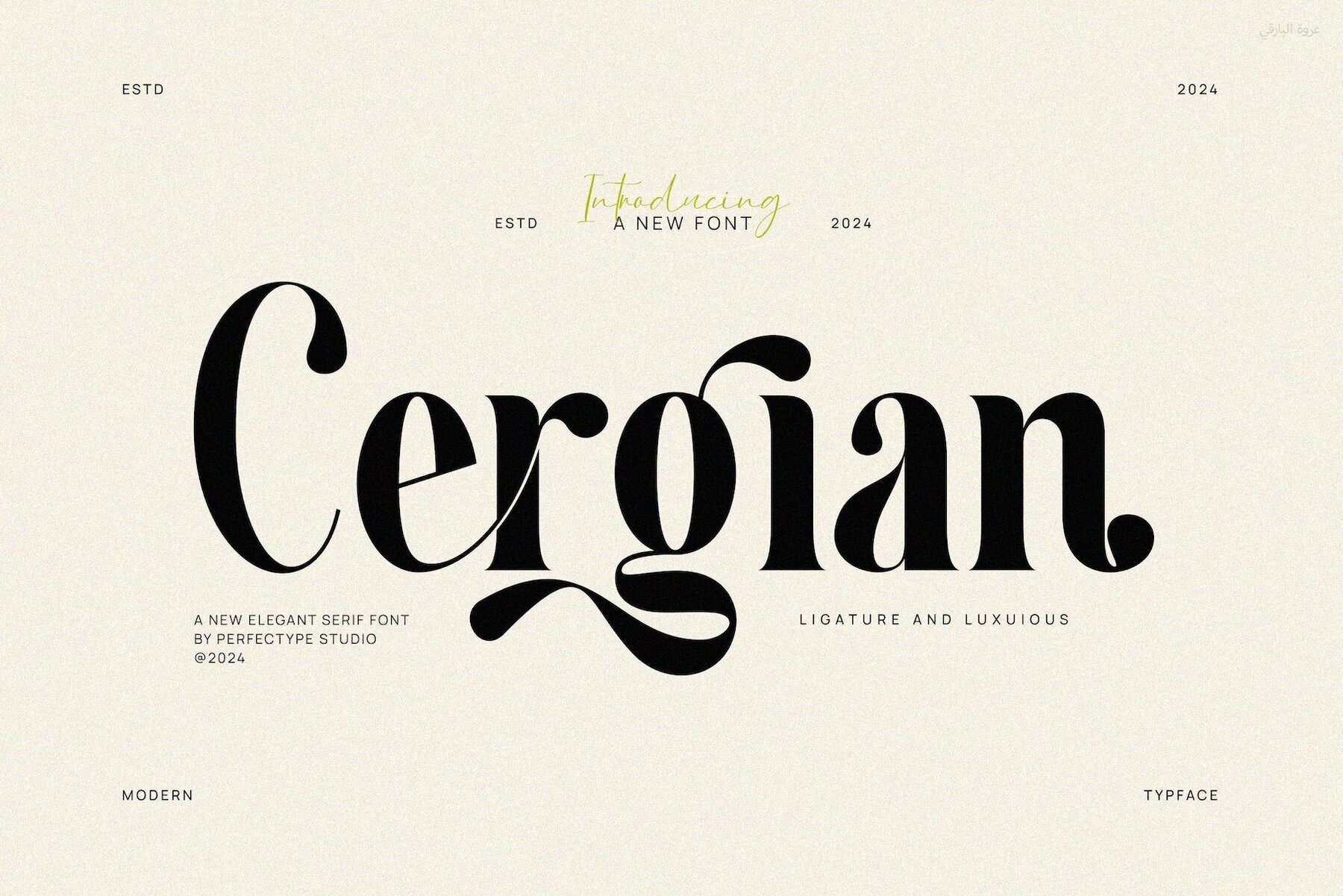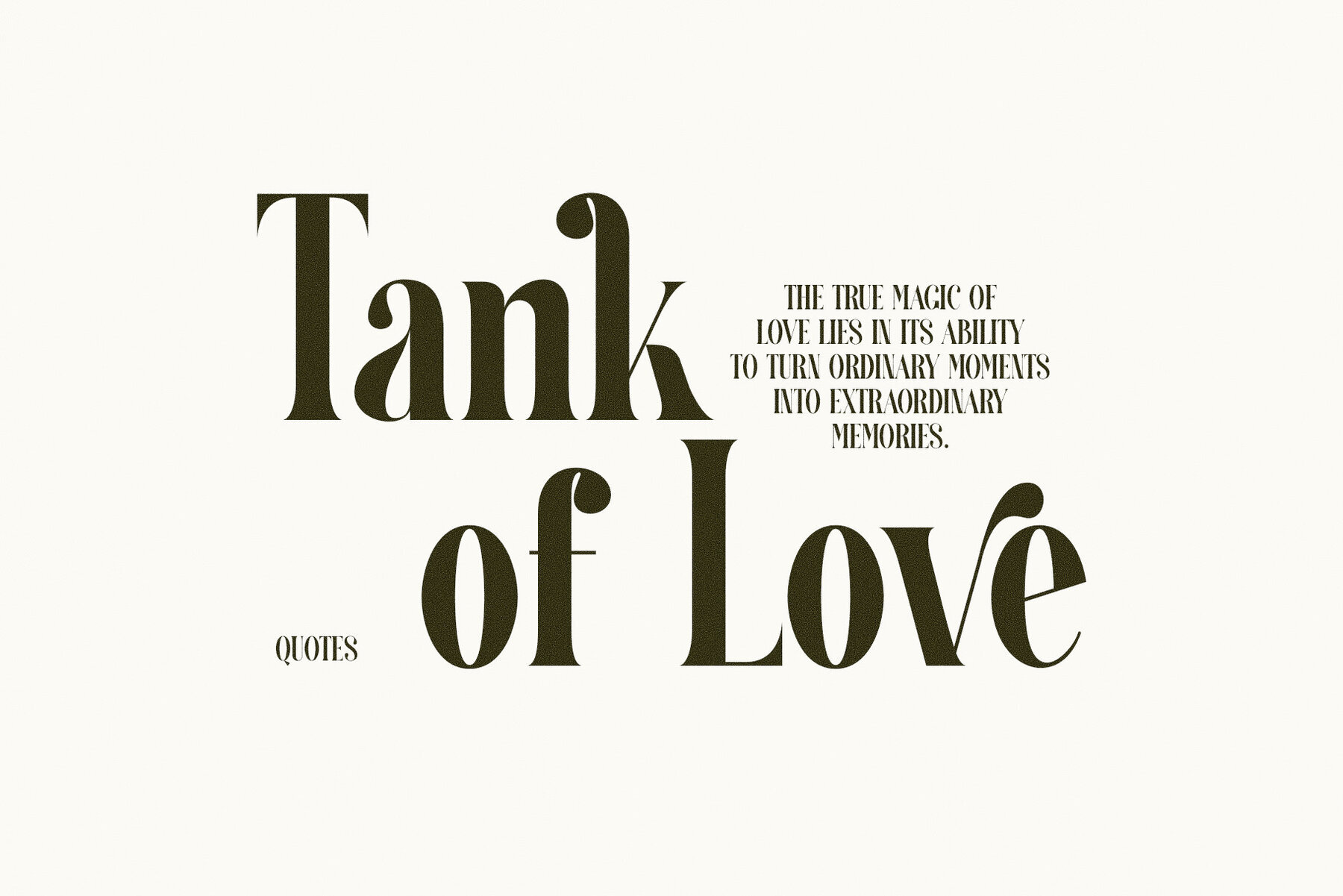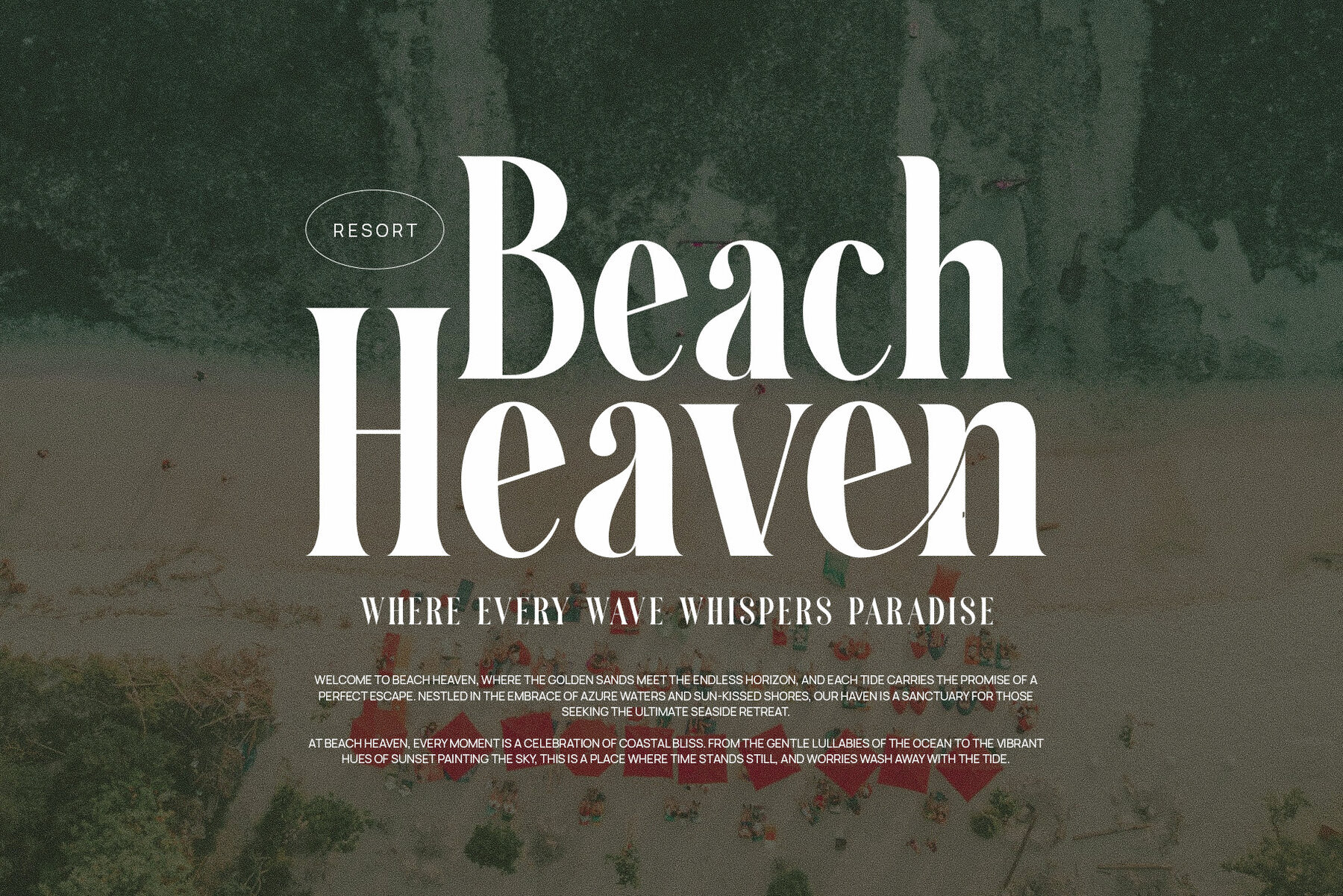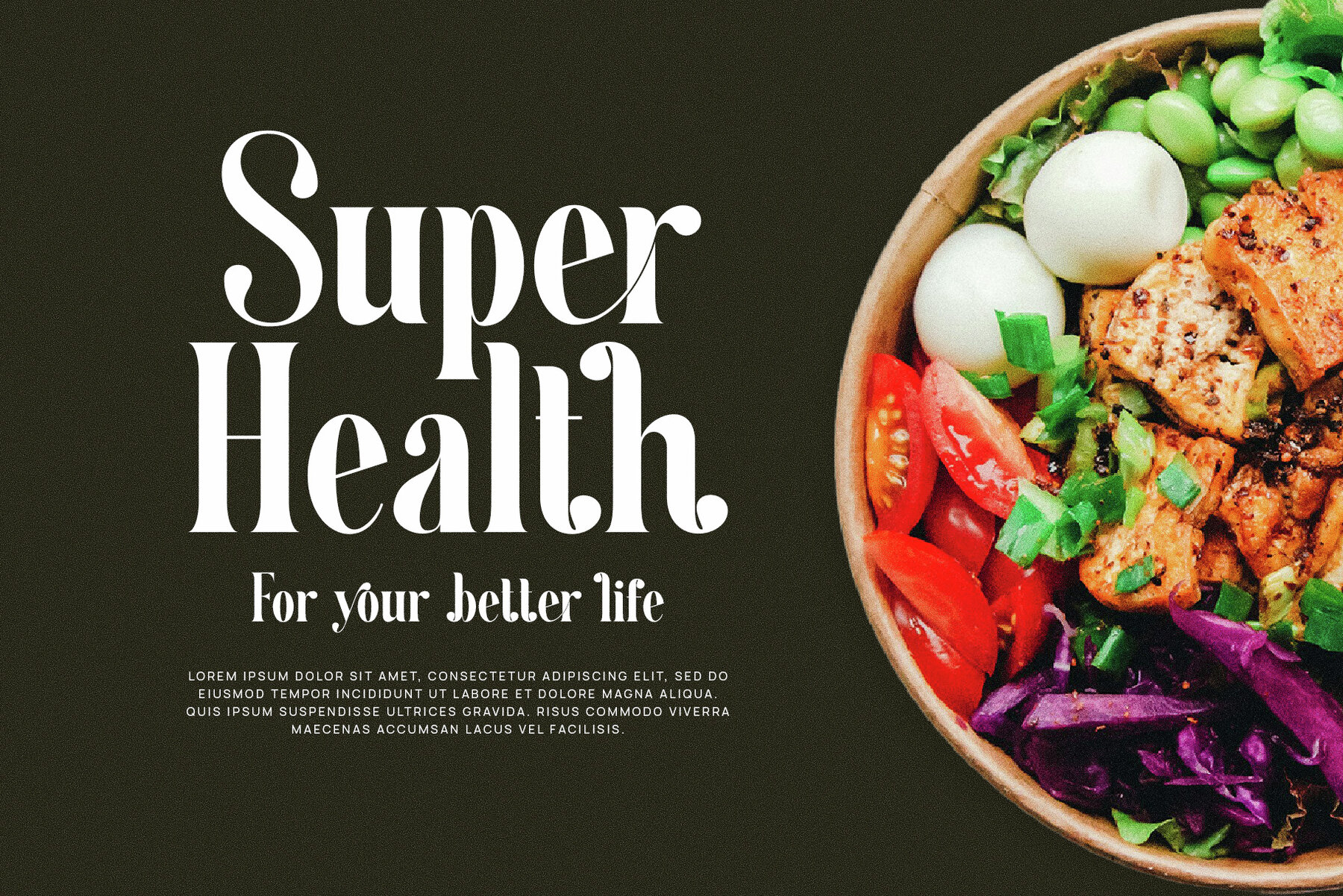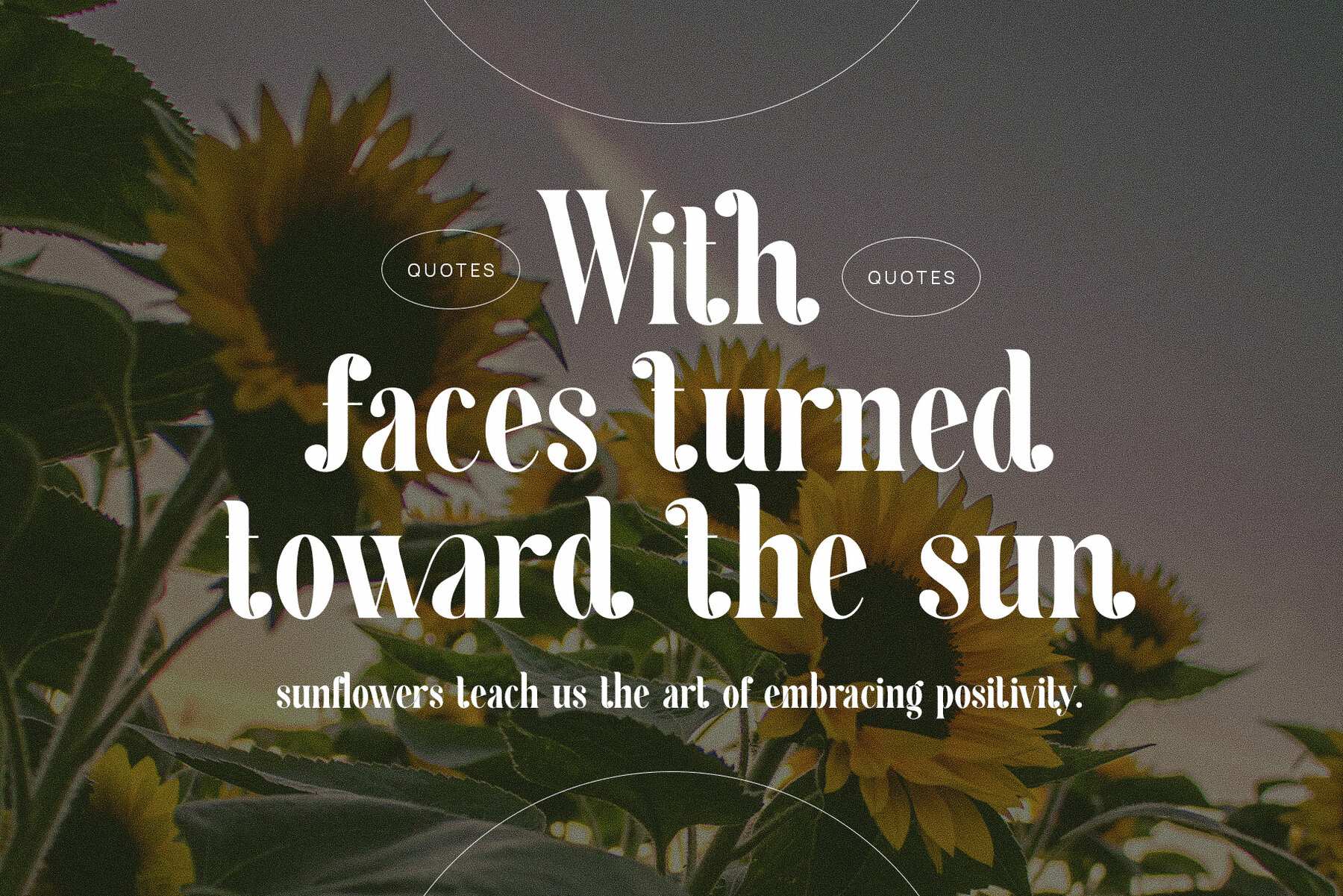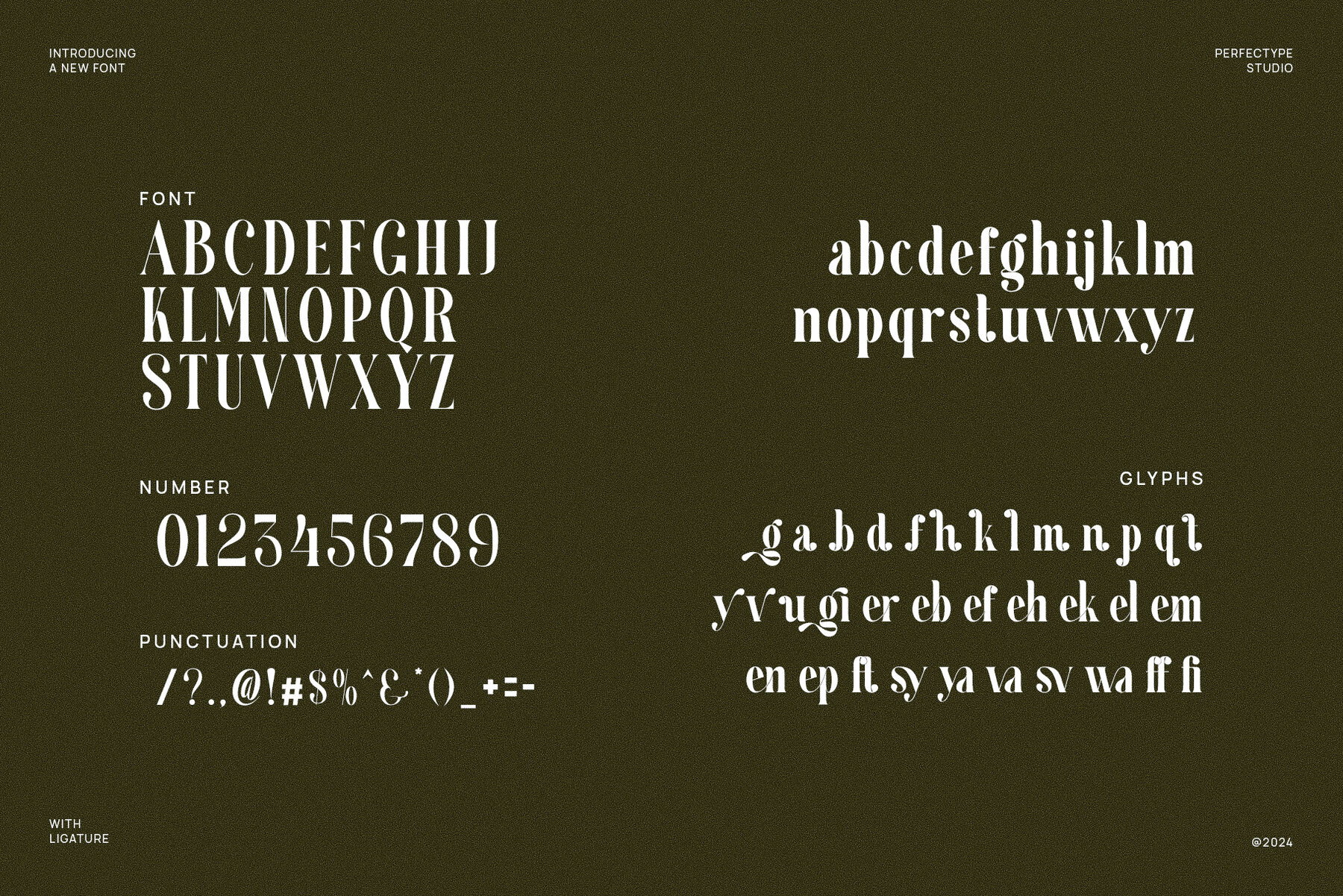
Cergian Font
Cergian
Cergian Elegant Serif Font is a sophisticated fusion of modern elegance and timeless design. Characterized by its distinctive serifs and meticulously crafted letterforms, Cergian enhances any design with a touch of class. Featuring elegant ligatures and alternate characters, it provides exceptional flexibility for custom typography. This makes it an excellent choice for high-end branding, excelling in logos, visual identities, and product packaging. Its stylish form is suitable for both large headlines and smaller text, ensuring messages are conveyed with clarity and finesse.
Ideal for industries like fashion, food, lifestyle, and boutique brands, Cergian pairs modernity and elegance seamlessly. Its versatility shines across digital and print formats, fitting perfectly in websites, advertisements, and promotional materials. The font's clean lines, balanced design, and unique ligatures ensure it stands out while maintaining sophistication and readability. With its luxurious forms and thoughtful features, Cergian Elegant Serif Font is essential for designers aiming to create memorable, high-end visuals that leave a lasting impression.